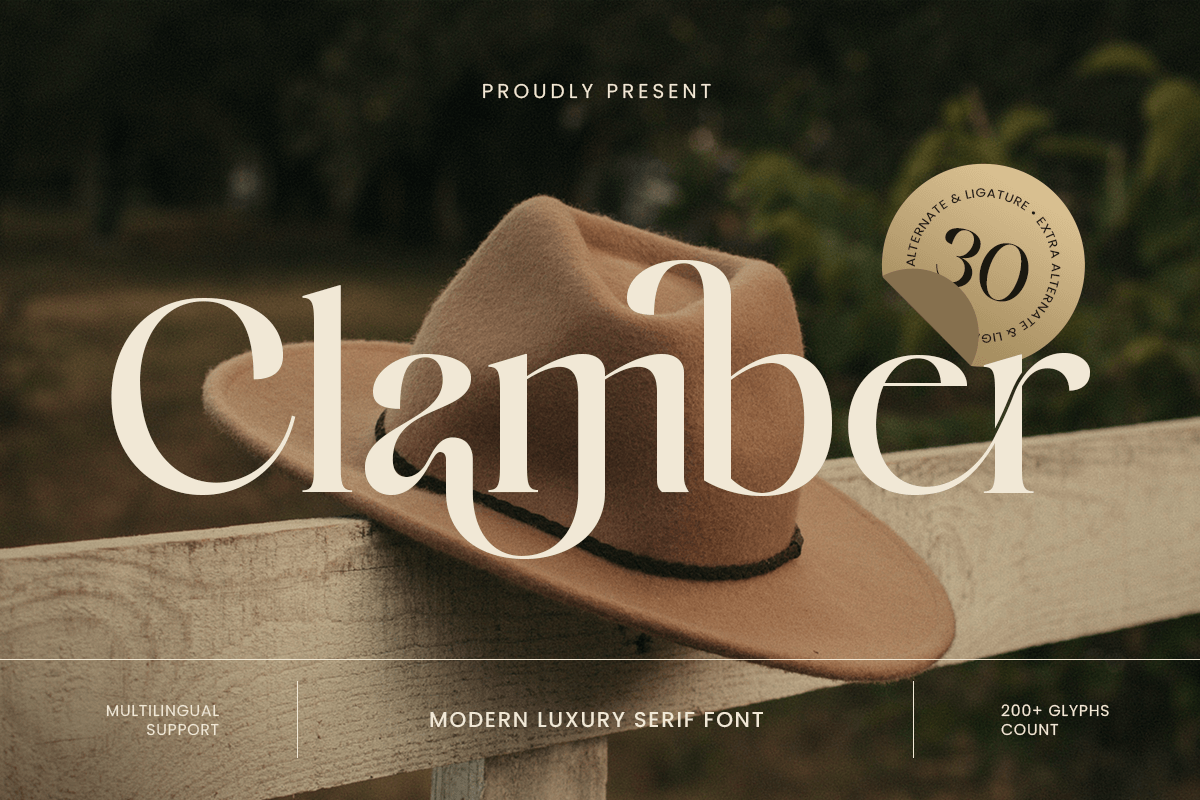
Clamber
-Modern Luxury Serif Font
Clamber - Modern Luxury Serif Font
Clamber is a modern luxury serif font designed to deliver refined sophistication with a clean, contemporary edge. With polished serif details, balanced proportions, and a confident high-end rhythm, this typeface creates a premium visual tone that feels timeless, stylish, and instantly brand-ready.
Built for luxury-led typography, Clamber works beautifully across logos, wordmarks, brand identity systems, magazine headlines, website headers, packaging, labels, invitations, signage, presentations, and upscale marketing visuals. Its elegant structure keeps layouts crisp and readable while adding a prestigious mood across both digital and print design.
Whether you’re shaping a fashion label, elevating a beauty brand, designing premium packaging, or crafting an editorial layout with a high-end feel, Clamber provides a modern serif foundation that makes your typography feel sophisticated, professional, and unforgettable.
Inspiration Behind Clamber
Clamber is inspired by contemporary luxury branding and modern editorial typography—where clarity, refinement, and elegant structure define premium communication. The design focuses on clean serif presence and balanced rhythm to support upscale identities and refined layouts with timeless appeal.
Clamber Font Features:
• Modern luxury serif letterforms with refined premium character
• Perfect for high-end branding, logos, and editorial headline typography
• Clean structure for stylish layouts and strong readability
• Luxury logos, wordmarks, and premium brand identity systems
• Fashion, beauty, skincare, fragrance, jewelry, and boutique branding
• Editorial layouts, magazine covers, lookbooks, and headlines
• Premium packaging, labels, invitations, and elegant stationery
• Social media campaigns, websites, presentations, and marketing assets